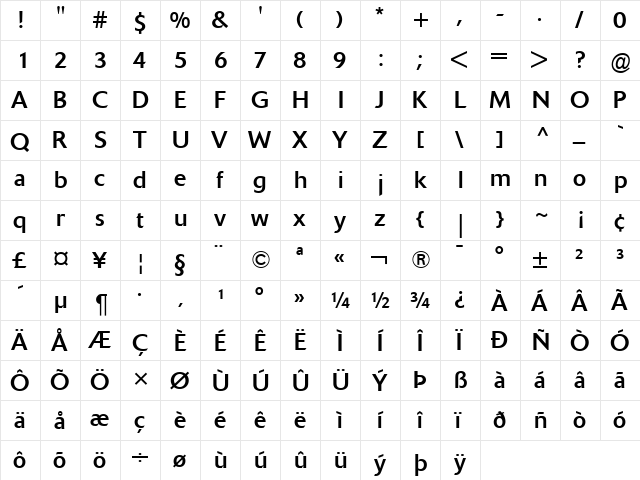
Delta Jaeger Regular
Design Context for Delta Jaeger Typeface
Delta Jaeger takes a measured approach to typography — its balanced proportions and neutral character make it a reliable workhorse for both digital and print work.